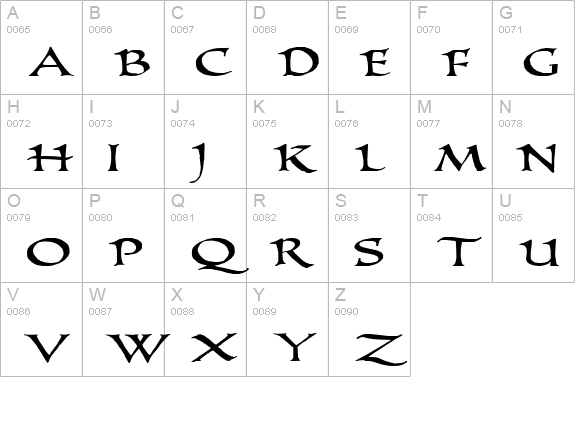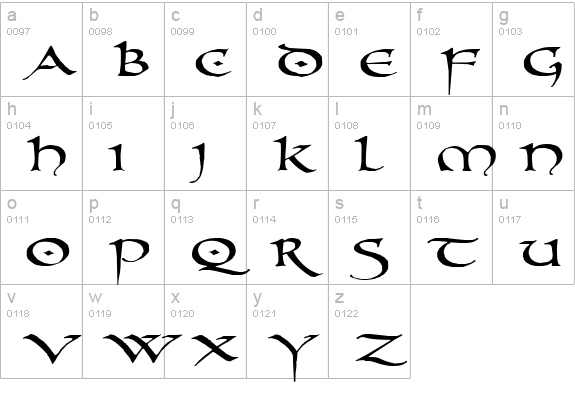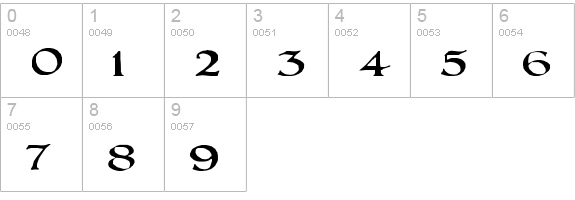
PR Uncial Alt Caps Extended is a distinctive, extended-width variant in the PR typeface family \xE2\x80\x94 well suited to design and typography projects.
PR Uncial Alt Caps Extended is a stunning and versatile font that exudes a timeless elegance with its unique uncial style. This font features extended uppercase characters that are perfect for adding a touch of sophistication to your projects. The bold and refined letterforms of PR Uncial Alt Caps Extended make it ideal for a wide range of design applications, from invitations and posters to branding and packaging. What's even better is that PR Uncial Alt Caps Extended is available for free download at FontsMarket.com! You can easily incorporate this beautiful font into your designs without any cost, making it a valuable addition to your font collection. Whether you're working on a personal project or a professional design, PR Uncial Alt Caps Extended will elevate your work with its classic charm and distinctive flair. Download it now and let your creativity shine with this exquisite typeface.